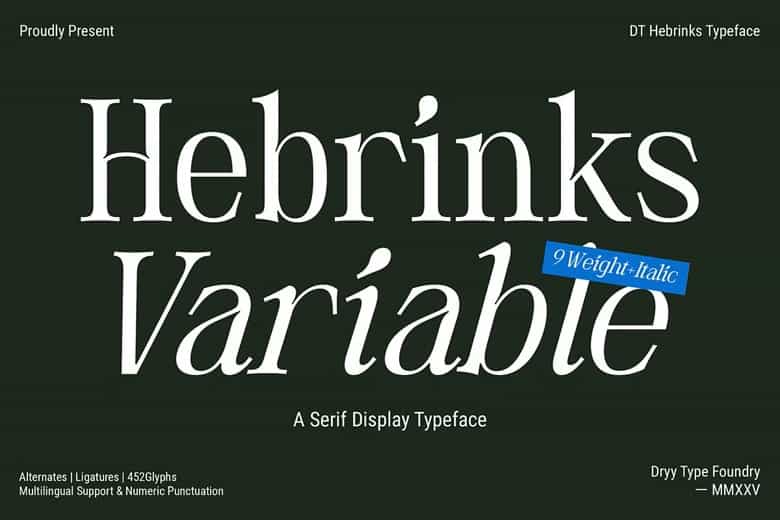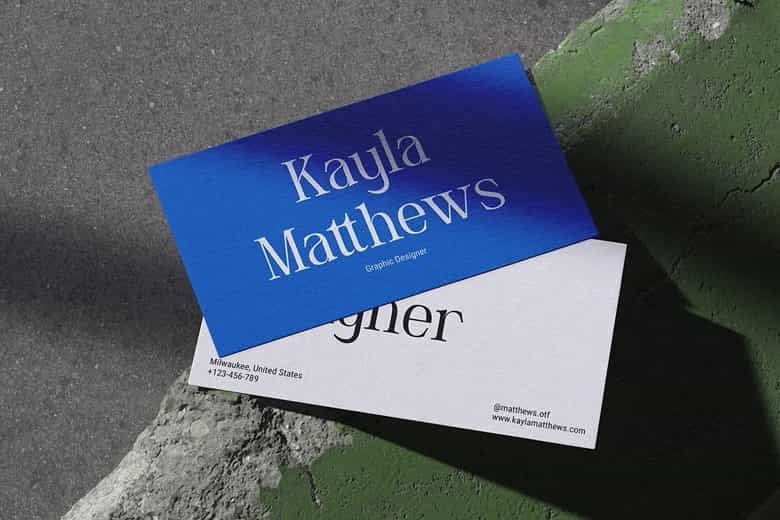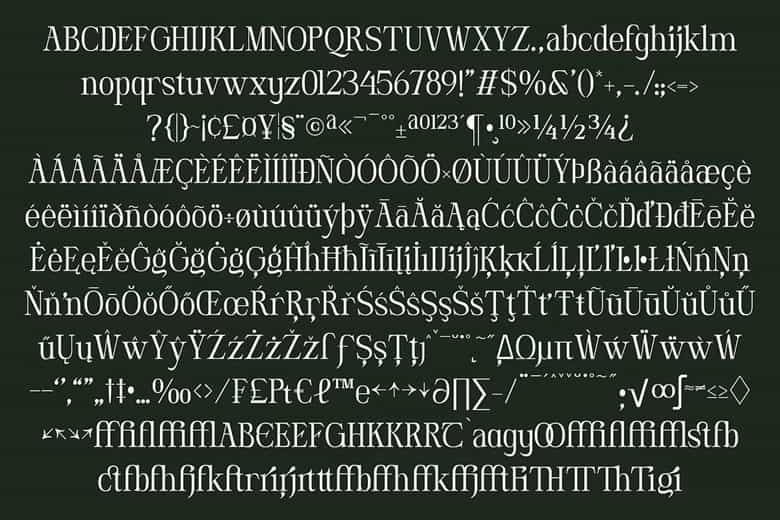
DT Hebrinks is a charming and graceful type of serif font. Drawing from New beginnings which aims to be better in its quality and looks, and where it takes a rather long duration in the process of making it.